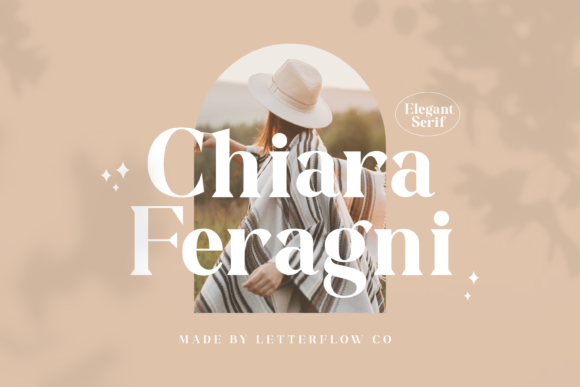
Introducing the Chiara Feragni Font, an exquisite serif that embodies elegance and sophistication. Created by the renowned Letterflow Studio, this font is meticulously crafted to elevate the visual appeal of your creative endeavors.
Chiara Feragni's graceful curves and balanced strokes evoke a sense of timeless allure. Its medium weight ensures optimal readability while maintaining a touch of refinement. Whether you're a seasoned designer or a creative enthusiast, this versatile font will empower you to make a lasting impression.
Indulge in the beauty of Chiara Feragni, a font that whispers sophistication and exudes confidence. Its timeless charm will elevate your designs, adding a touch of elegance to every project. Embrace the power of this exquisite font and let your creativity shine.
Chiara Feragni is the epitome of beauty and functionality, perfectly suited for a wide range of applications. Its allure shines through in beauty salon branding, captivating posters, and stunning social media posts. Unleash your creativity and elevate your designs to new heights with Chiara Feragni.
This enchanting font is not just a tool; it's a gateway to a world of boundless possibilities. With Chiara Feragni, you'll embark on a journey where your designs will transform into masterpieces, leaving an indelible mark on your audience.
Don't settle for ordinary fonts; embrace the extraordinary with Chiara Feragni. Experience the true essence of beauty and elegance, and let your creations blossom with unparalleled allure. Immerse yourself in the world of Chiara Feragni, where every stroke tells a captivating story.